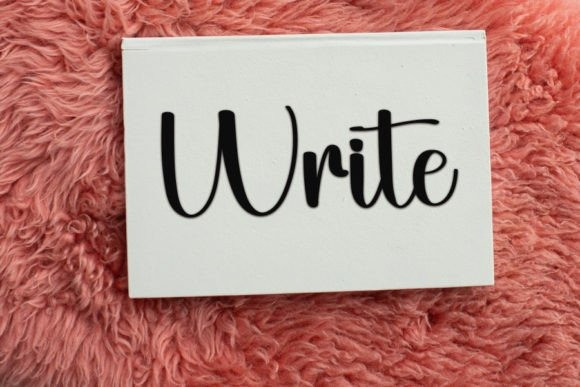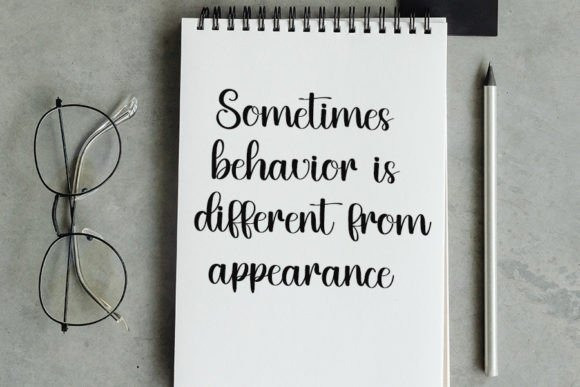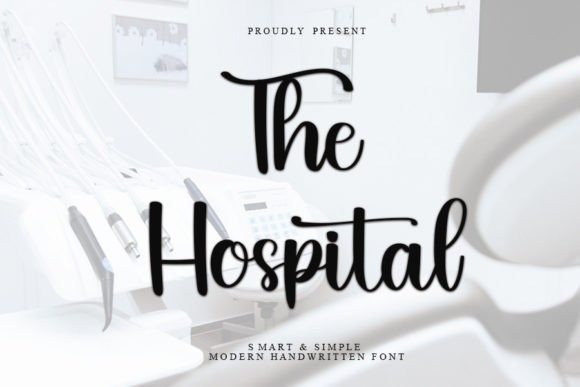
The Hospital Font
The Hospital Font is a modern handwriting font with a very elegant touch. Grab it now and start making the best flyers, wedding invitation cards, logos, banners, birthday cards, and thumbnails.